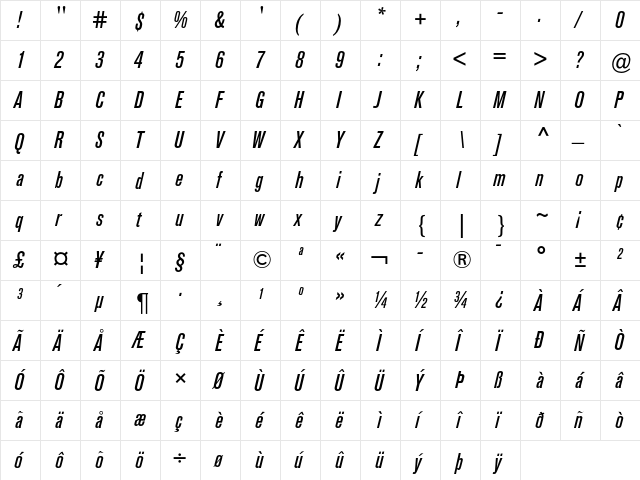
Berthold Akzidenz Grotesk Medium Condensed Italic Font Preview
Design Context for Berthold Akzidenz Grotesk Typeface
Berthold Akzidenz Grotesk has the quiet confidence of well-executed sans-serif typography: versatile, unobtrusive, and dependable at any size. The slanted form adds forward momentum and visual energy. Its narrow stance lets it pack a punch even in space-constrained designs.
Font Pairing: Works well alongside a characterful serif or display font that can carry the expressive load while Berthold Akzidenz Grotesk handles the functional copy.
Pro Tip: Try Berthold Akzidenz Grotesk in all-caps with moderate tracking for navigation and label copy — it performs well in systematic UI contexts.